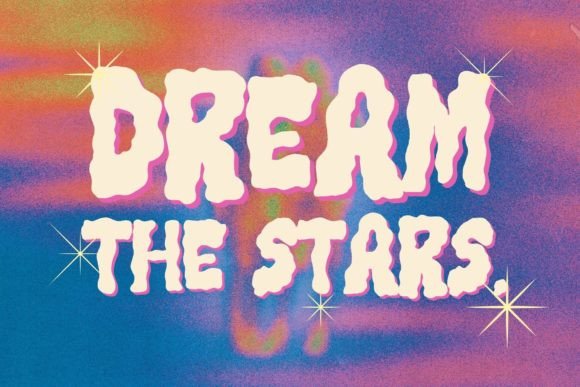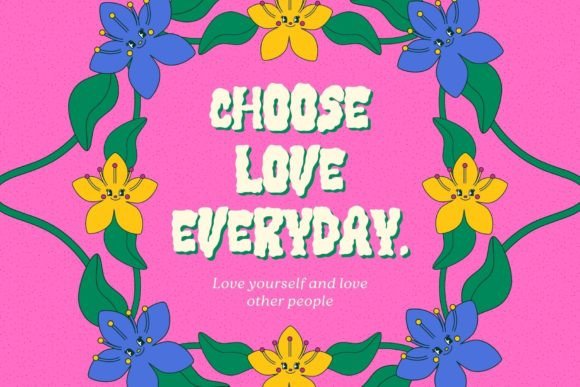
Introduction to Kimoch Font
Have you ever found yourself stuck in the middle of a creative project, desperately searching for the perfect font to bring your vision to life? You know, that moment when everything else feels just right, but the text is lacking that extra oomph? For designers, this is a familiar struggle, and it’s exactly why discovering a high-quality font like Kimoch Font can be a game-changer.
With its hand-painted feel and unique character, Kimoch Font is more than just a design resource – it’s a tool that can elevate your work and make it truly stand out. Whether you’re working on a quote, poster, or logo, this lovely display font is sure to add a touch of personality and whimsy to your project. And the best part? You can download it for free, complete with a transparent background, making it easy to integrate into your design.
Key Features of Kimoch Font
- Unique, hand-drawn design with a playful and whimsical feel, making it perfect for creative projects.
- High-quality font with a transparent background, allowing for seamless integration into various design resources.
- Designed to be versatile and adaptable, making it a valuable design resource for various creative projects.
Honest Review: Kimoch Font
As a designer, I’m always on the lookout for unique and high-quality design resources to elevate my creative projects. Recently, I stumbled upon the Kimoch Font, and I’m excited to share my thoughts on it.
What works well: ✨ The Kimoch Font is incredibly versatile, making it perfect for a wide range of creative projects. Its unique, playful style adds a touch of whimsy to any design, and the font’s transparent background makes it easy to layer and combine with other elements. I also appreciate the high quality of the font files, which ensures that the design looks crisp and clear even at larger sizes.
What’s not so great: ⚠️ While the Kimoch Font is generally well-designed, I do wish there were more font sizes and styles available for download. This would make it easier to customize the font for specific design projects. Additionally, some of the font characters may not be as refined as I’d like, which can be a bit distracting in certain contexts.
Overall, I’m impressed with the Kimoch Font’s potential and versatility. If you’re looking for a unique and high-quality design resource for your creative project, this font is definitely worth considering. Just be sure to check the available font sizes and styles before downloading.
- Unique, playful design style
- High-quality font files for crisp, clear design
Kimoch Font
The Kimoch Font is a versatile design resource perfect for any creative project. It’s available for free download, offering a high-quality addition to your designs.
To get the most out of the Kimoch Font, use it in conjunction with a transparent background for a seamless design. Experiment with different font sizes and colors to add visual interest to your project.
The Kimoch Font is perfect for a variety of creative projects, including social media graphics, blog posts, and presentations. Its high-quality design makes it ideal for use in any situation where a professional look is desired.